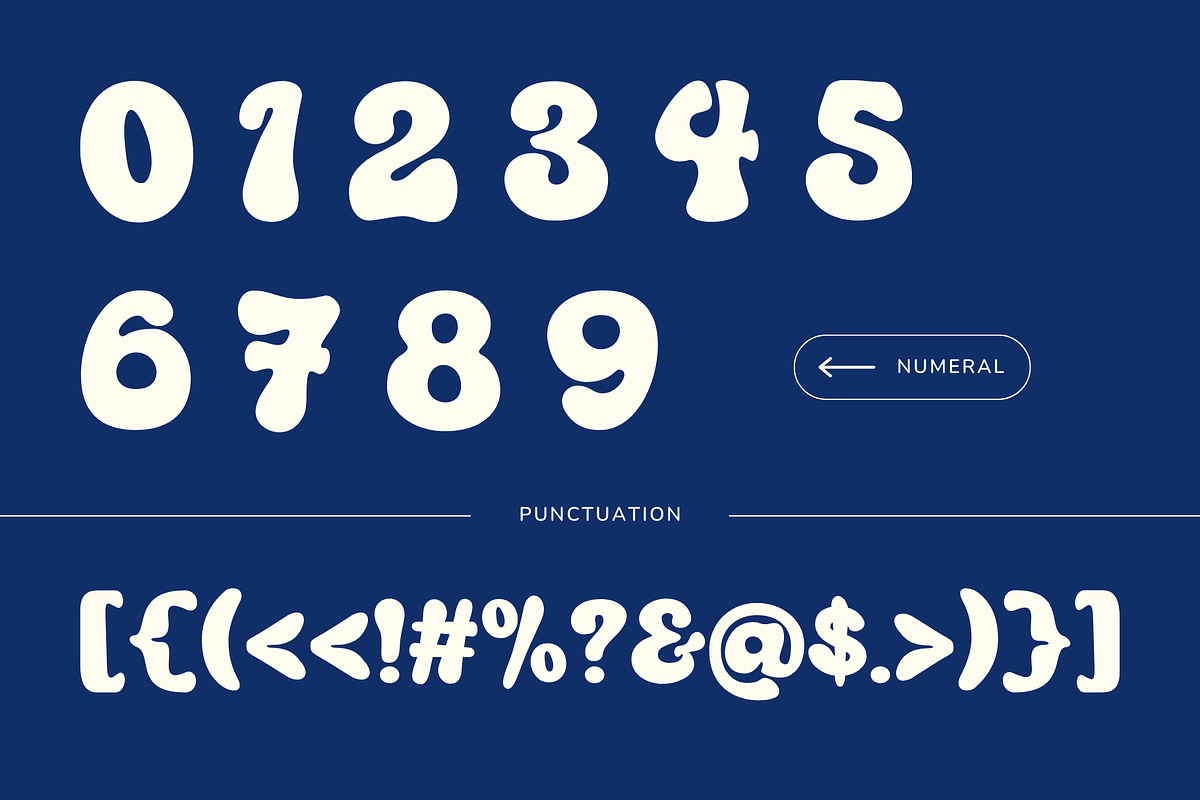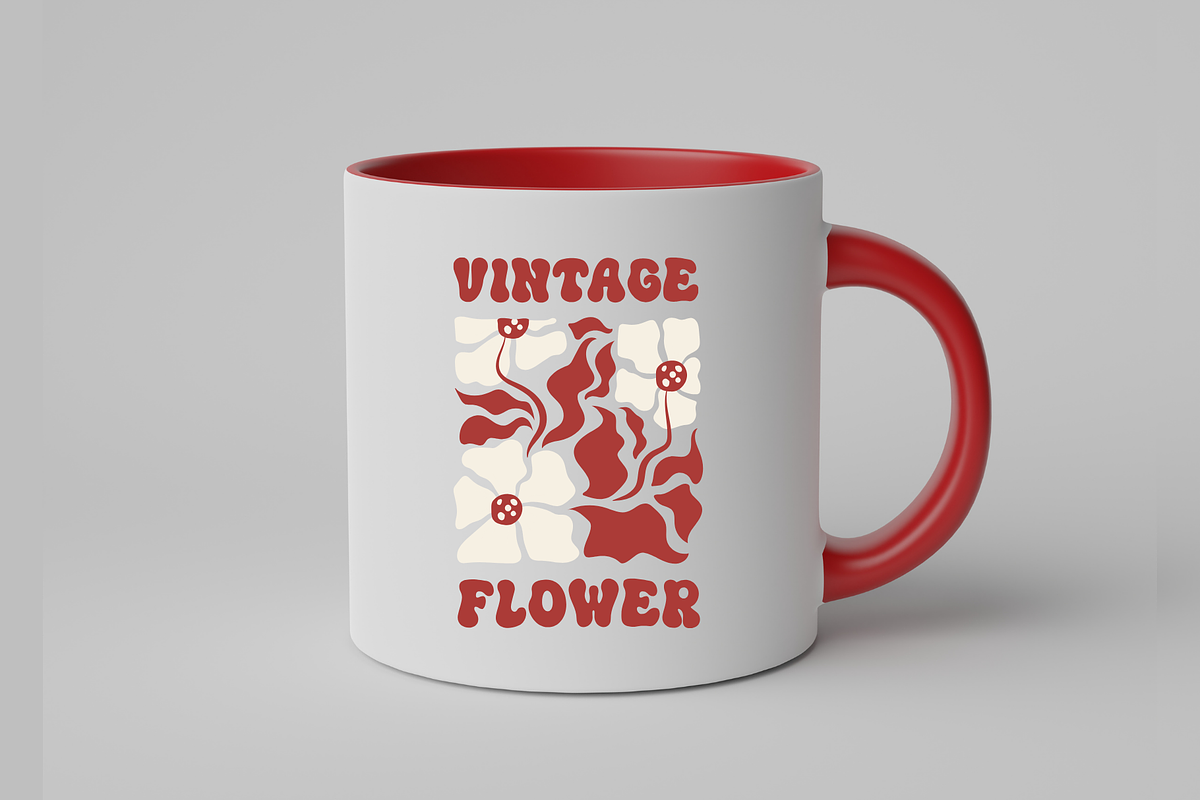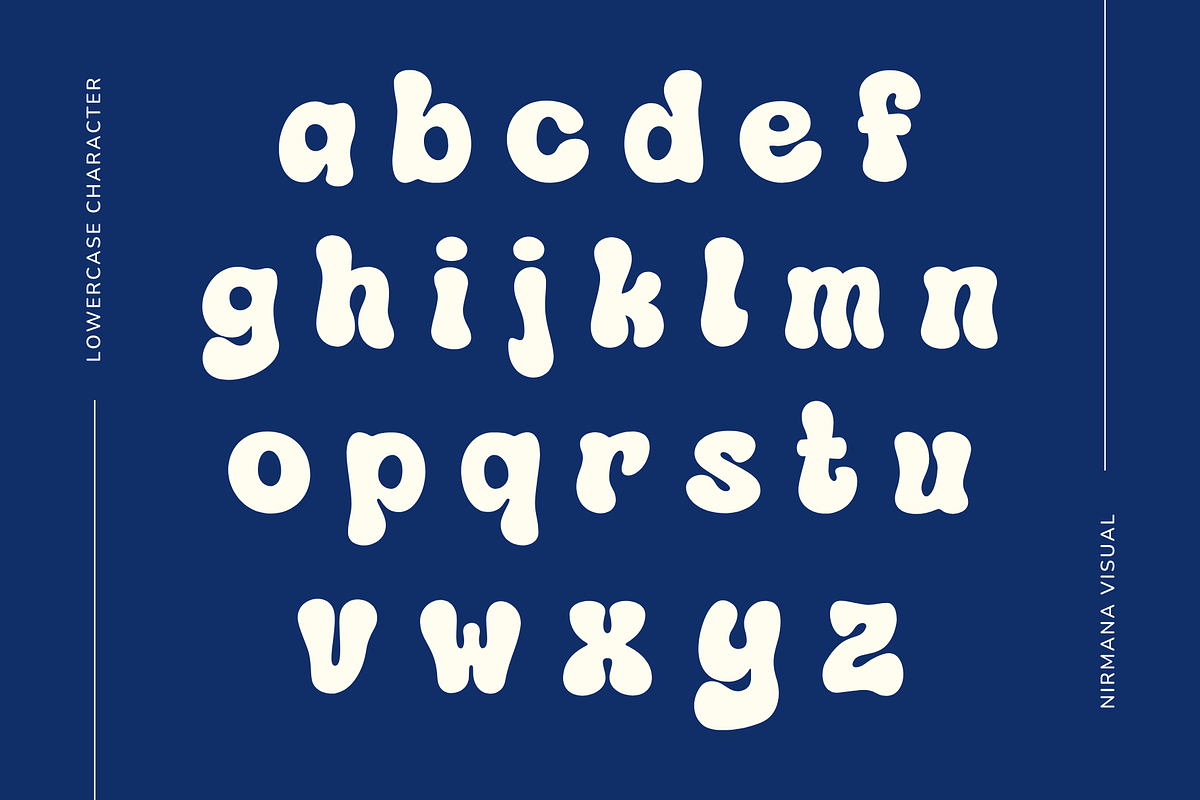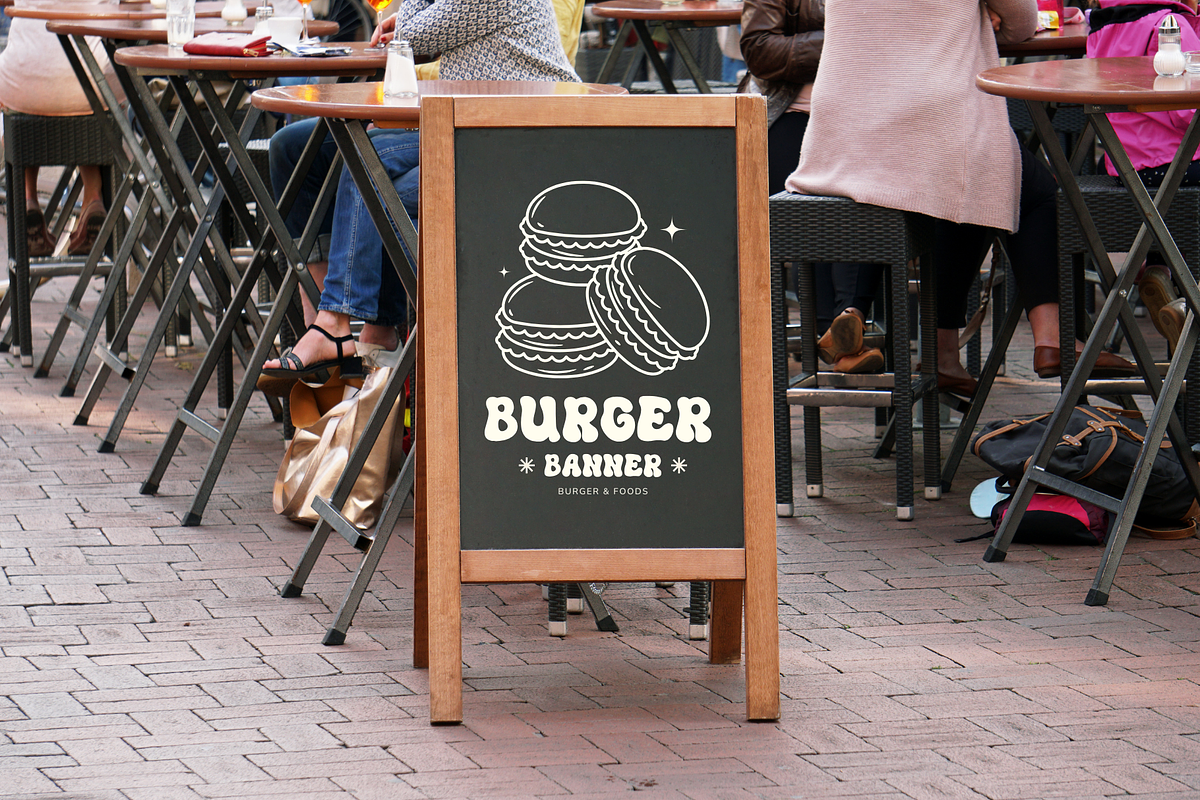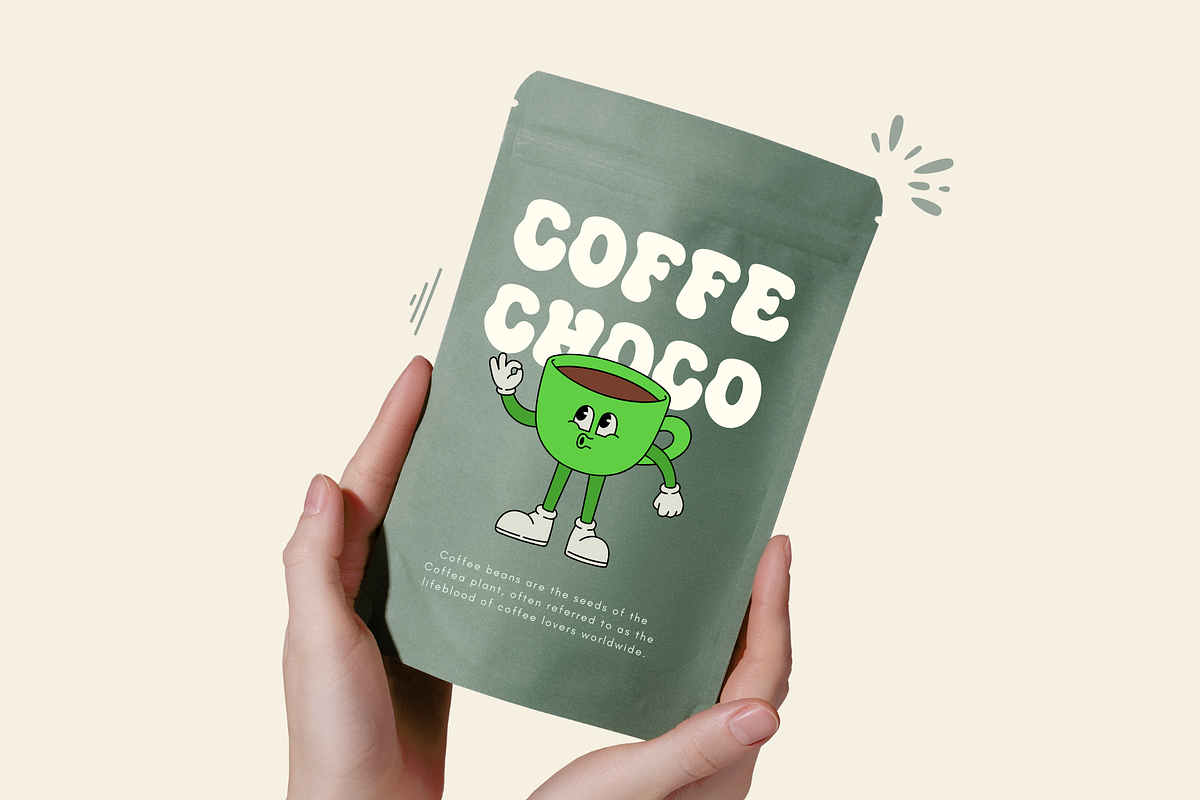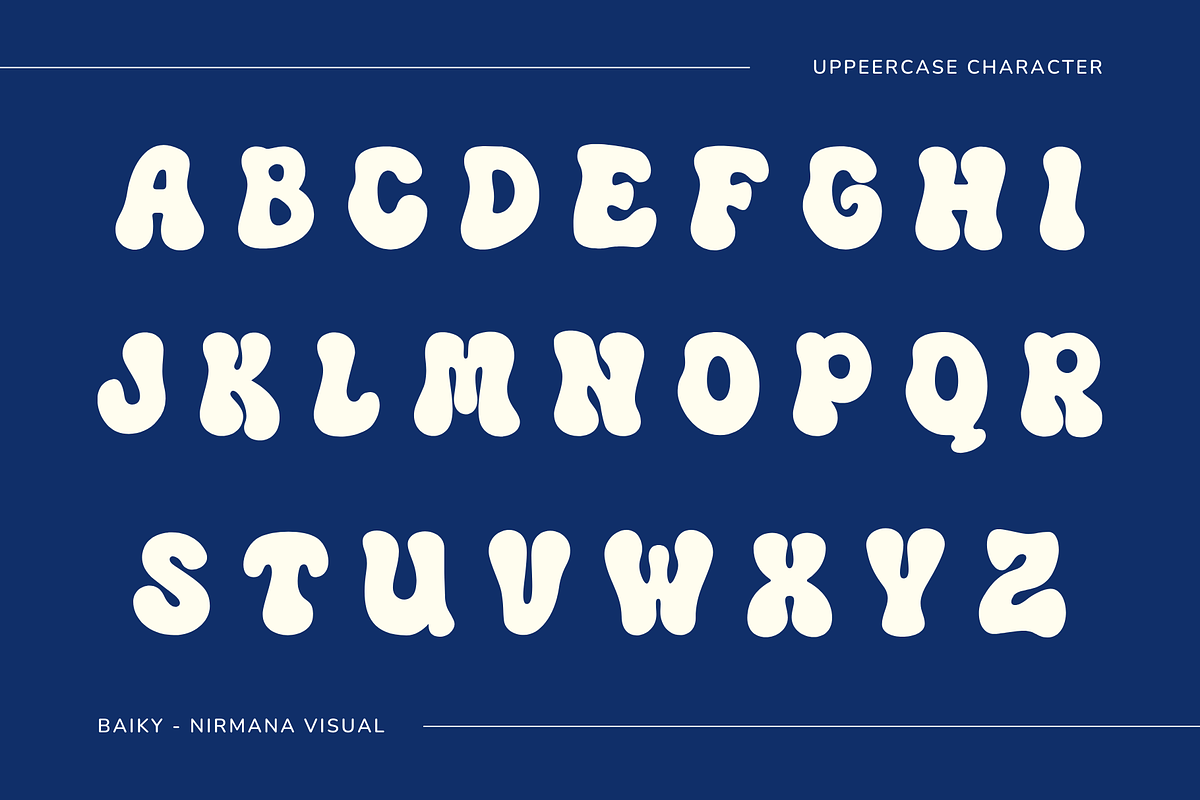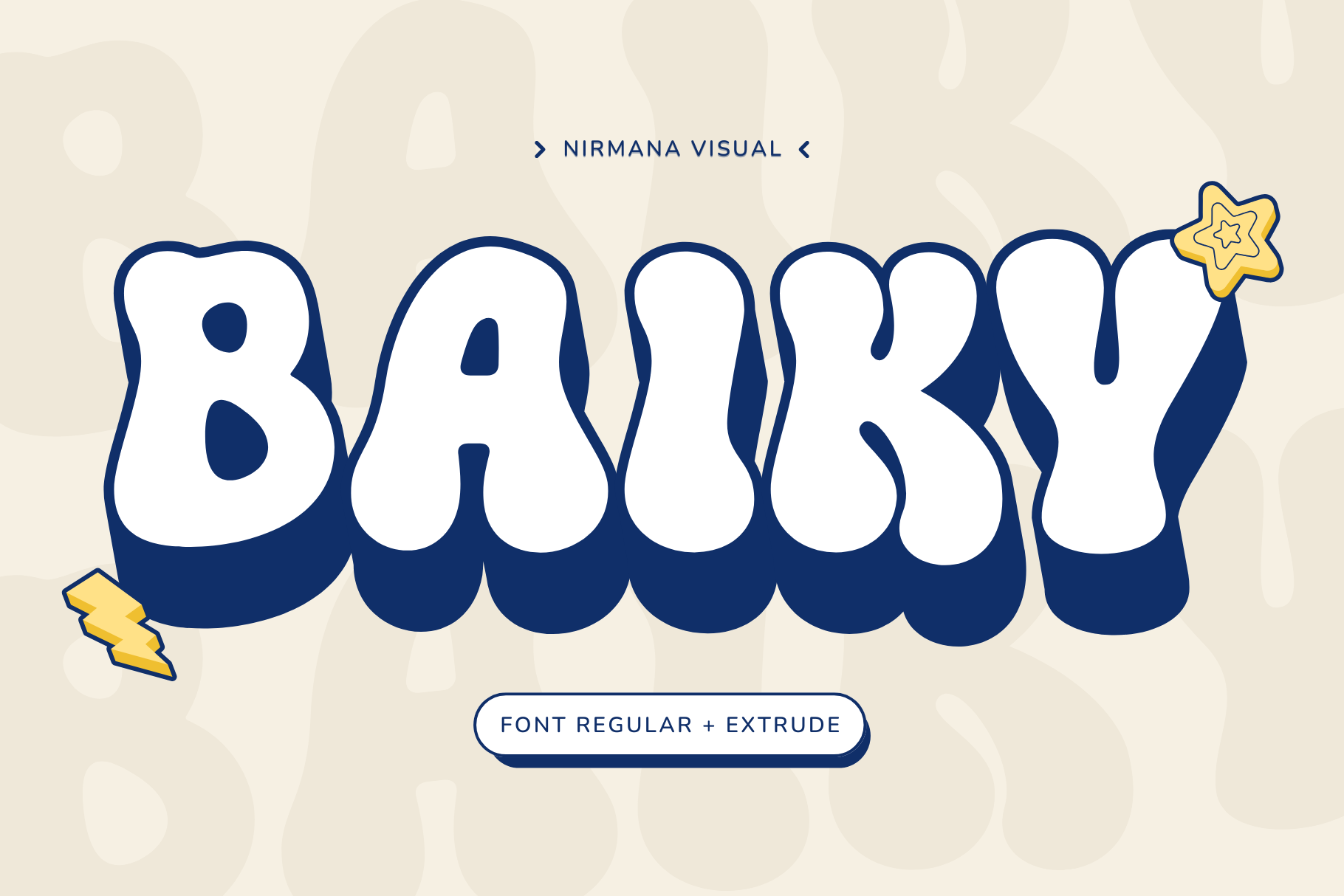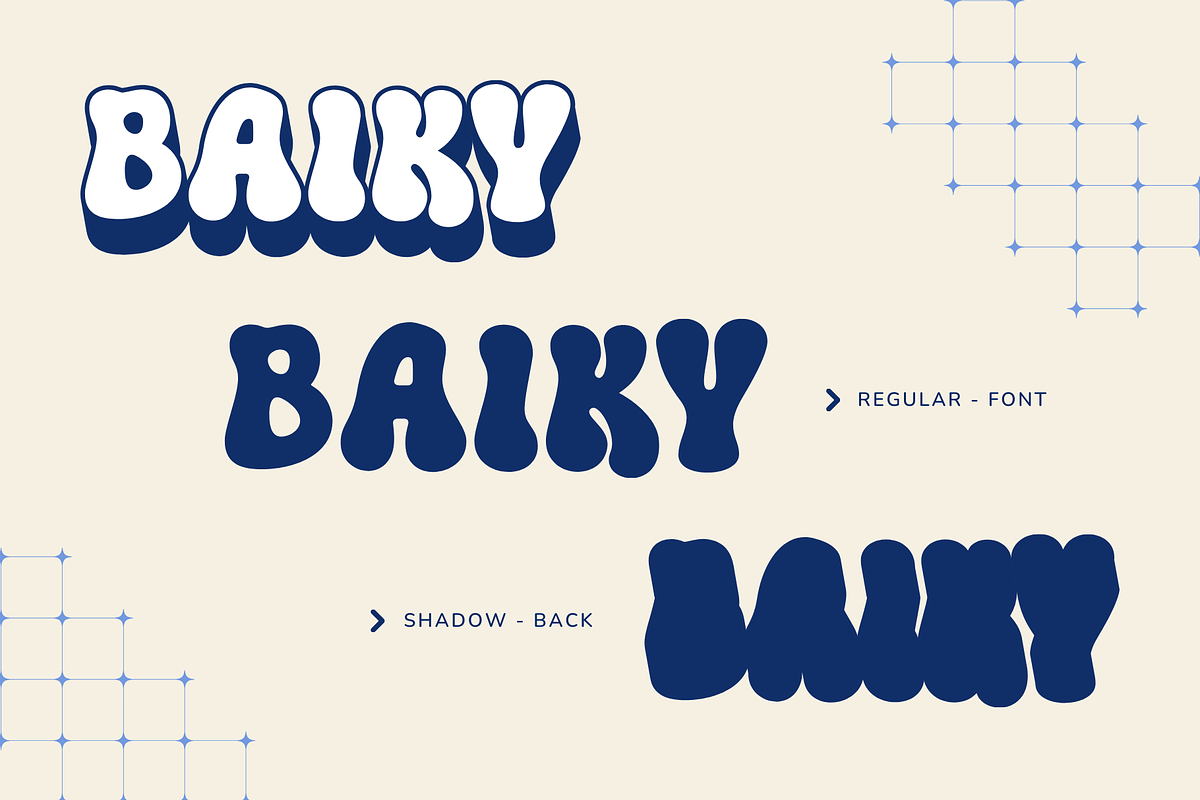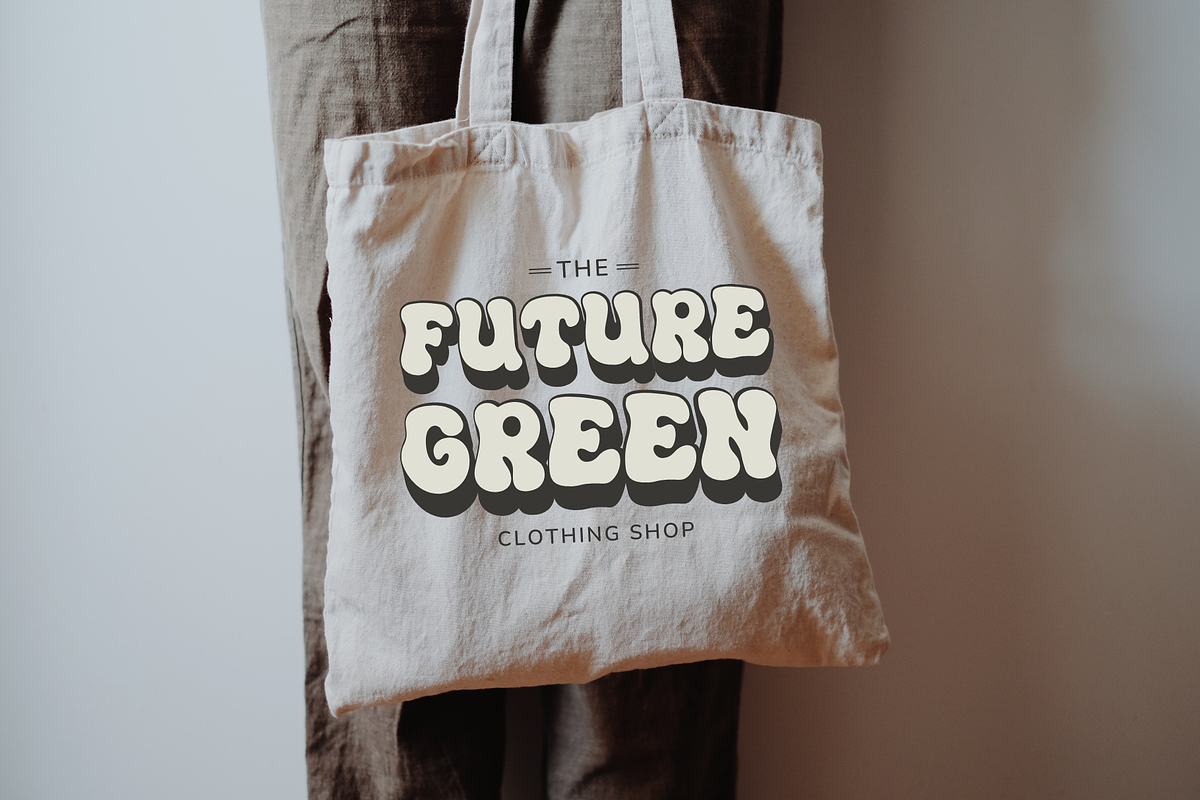
Baiky Retro - Branding Logo Font
Baiky Retro is a bold retro sans display font with a striking extruded style, perfect for vintage-inspired designs. Its thick, rounded letterforms and dimensional shadowing evoke a nostalgic yet modern feel, ideal for posters, branding, and headlines. With a balance of playfulness and structure, Baiky stands out in both digital and print media. Elevate your designs with its dynamic retro aesthetic and eye-catching depth!